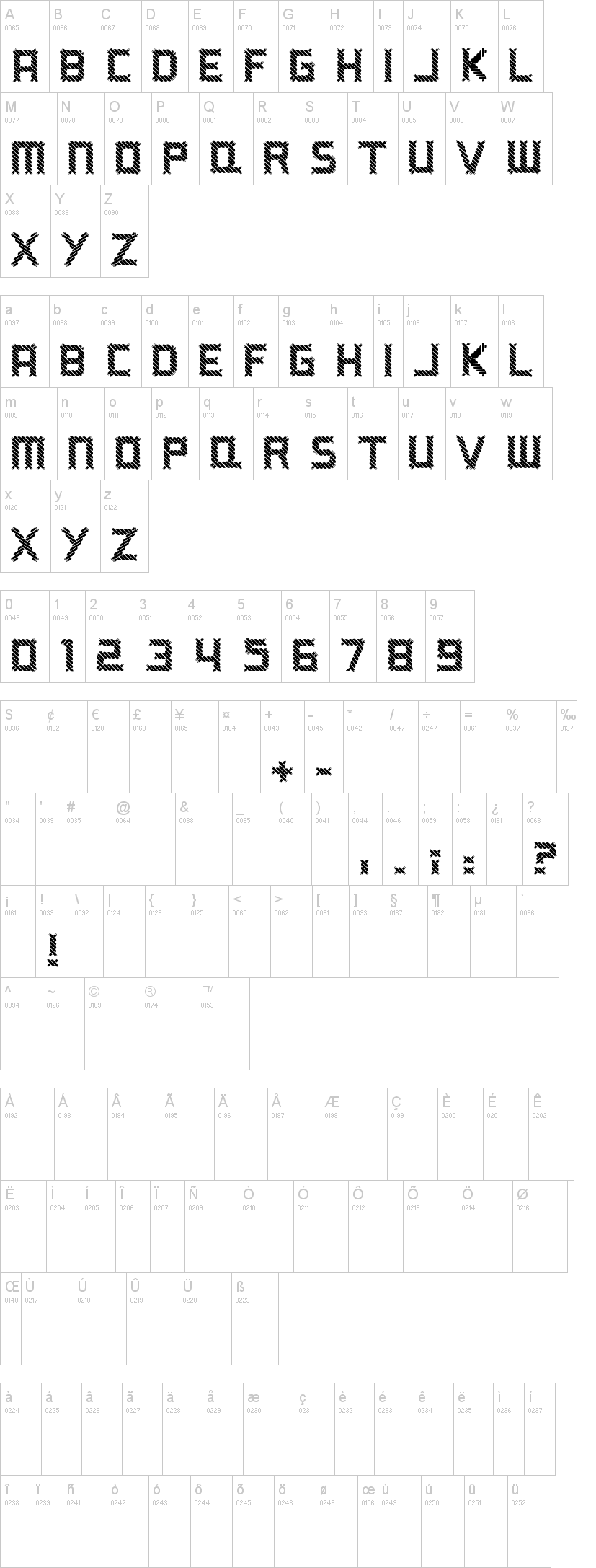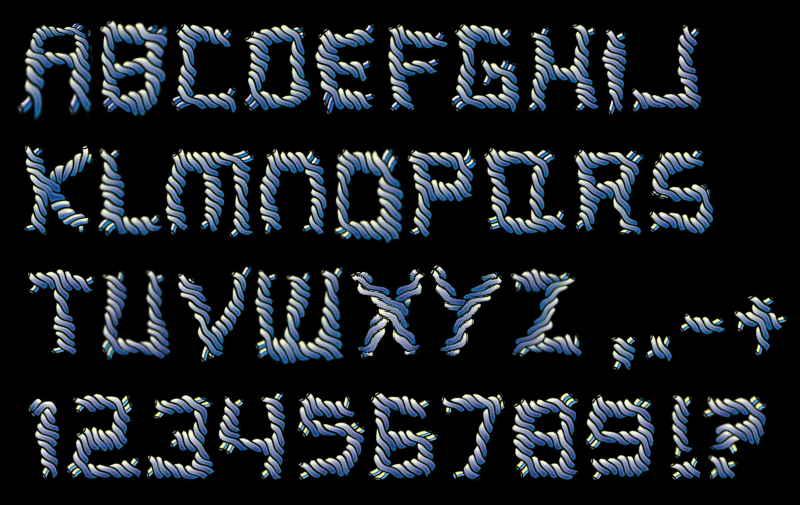
a_ripping_yarn_too.ttfNote of the authorI had spools of yarn in mind when I created it, but this font reminds me more of barbed wire or worms now that I´ve finished it. There´s a font for every application, whether you own a haberdashery or a live bait shop. Have fun.